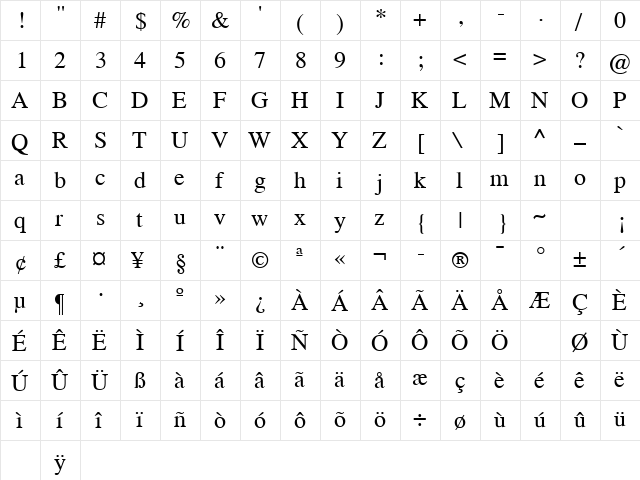
Fugit Regular
Design Context for Fugit Typeface
Fugit offers clean, dependable letterforms without strong stylistic allegiance, making it a practical choice for designers who need flexibility.